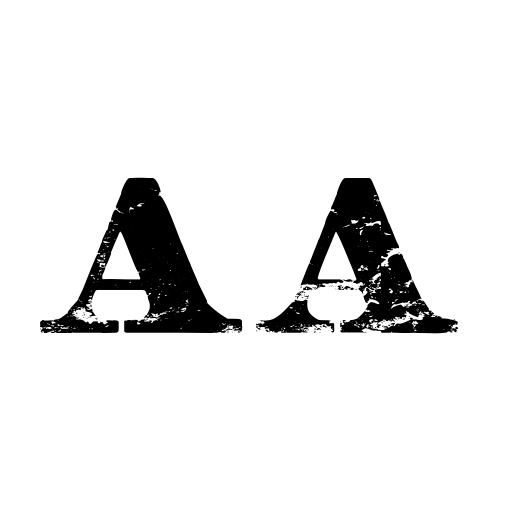
BARBARA PERSONAL USE is a bold serif typeface with a distressed, vintage texture that gives it a rugged and worn appearance. Its strong, condensed letterforms with pronounced bracketed serifs create a striking, industrial feel, perfect for designs needing an old-fashioned yet impactful statement. This font works well for posters, logos, and branding that aims to evoke a sense of authenticity and historic charm.
BARBARA PERSONAL USE Font
About BARBARA PERSONAL USE Font